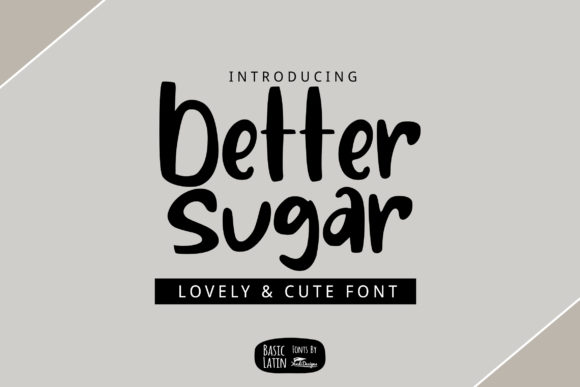
Better Sugar Font: A Lovely and Cute Handwritten Font for Your Designs
Are you looking for a font that can add a touch of nostalgia and personality to your designs? Look no further than the Better Sugar font! This lovely and cute handwritten font is perfect for designers and crafters who want to create unique and eye-catching projects. In this article, we’ll take a closer look at the Better Sugar font, its features, and how you can use it to elevate your designs.
What is Better Sugar Font?
Better Sugar is a beautiful handwritten font that reads as strong, confident, and dynamic. It’s a carefully crafted font that combines the charm of traditional handwriting with the clarity and legibility of modern typography. The font features a unique blend of rounded and cursive elements, making it perfect for a wide range of design projects, from invitations and greeting cards to branding and packaging.
Key Features of Better Sugar Font
- Handwritten style: Better Sugar font has a lovely handwritten style that’s perfect for adding a personal touch to your designs.
- Strong and confident: The font reads as strong and confident, making it perfect for titles, headings, and emphasis text.
- Dynamic and playful: The font has a dynamic and playful feel that’s perfect for creating eye-catching designs.
- Nostalgic character: Better Sugar font has a nostalgic character that can add a touch of warmth and personality to your designs.
- Easy to read: Despite its handwritten style, the font is easy to read and understand, making it perfect for body text and captions.
Who Can Use Better Sugar Font?
Better Sugar font is perfect for a wide range of designers and crafters, including:
- Graphic designers: Use Better Sugar font to create stunning branding, packaging, and marketing materials.
- Stationery designers: Create beautiful invitations, greeting cards, and stationery with this lovely font.
- Crafters: Use Better Sugar font to create handmade cards, gift tags, and other paper crafts.
- Digital artists: Use the font to create digital art, illustrations, and mixed media projects.
How to Use Better Sugar Font?
- Use it for emphasis: Use Better Sugar font to add emphasis to your designs, such as headings, titles, and captions.